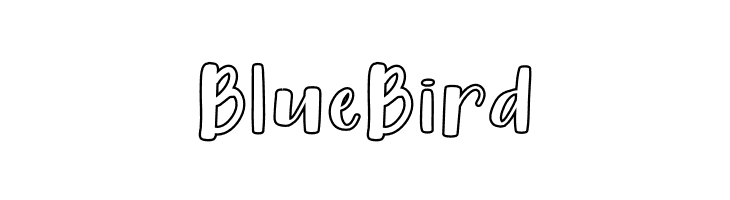
A playful, hand-drawn outlined font with a casual and friendly vibe.
A delicate, elegant script font with a handwritten style.
A bold, expanded, and italicized font with a dynamic, modern style.
A geometric, angular font with a modern and futuristic style.
A bold, playful typeface with a retro vibe and rounded characters.
A bold, modern font with unique cut-out style and strong visual impact.
A charming and elegant script font with flowing, cursive letterforms.
An ornate, decorative font with intricate swirls and vintage calligraphic style.
Casual handwritten script with varying stroke thickness.
A delicate, flowing script font with elegant cursive letterforms.